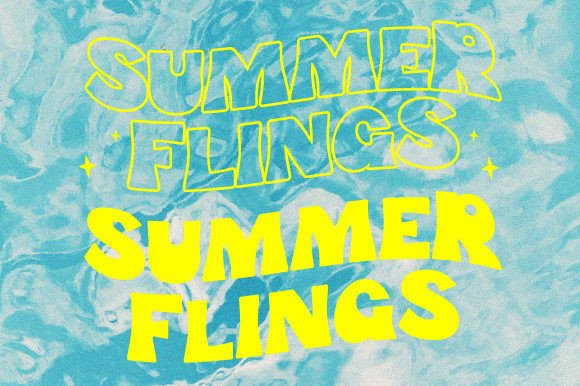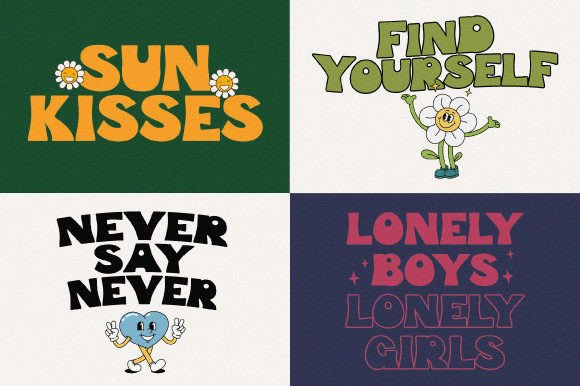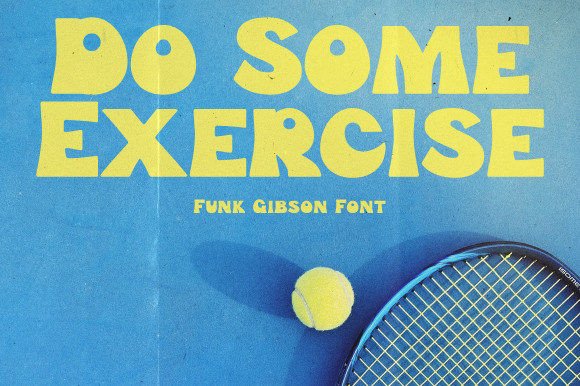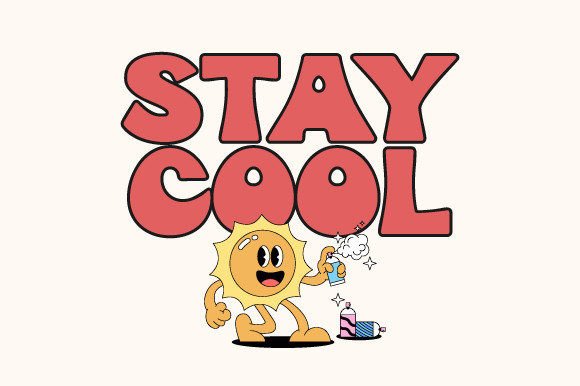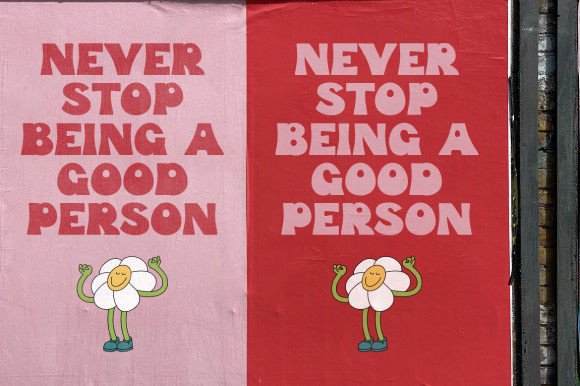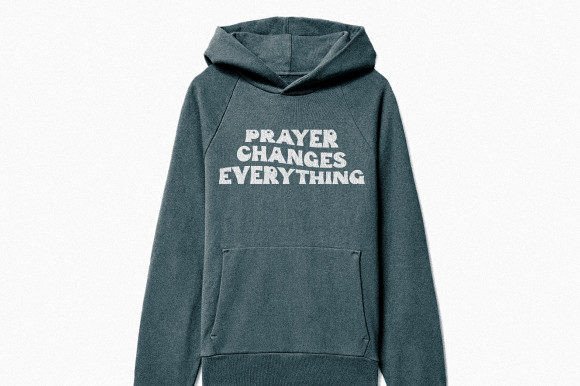
Funk Gibson Font: Add a Retro and Groovy Touch to Your Designs
Funk Gibson Font is a cool, bold display font that has been making waves in the design community. Its funky and fresh vibe makes it suitable for a wide spectrum of projects that require a retro and groovy touch. Whether you’re a designer, crafter, or DIY enthusiast, this font is sure to add a unique and eye-catching element to your work.
What is Funk Gibson Font?
Funk Gibson Font is a display font that boasts a bold and funky style. Its unique design is inspired by the retro and groovy aesthetics of the 1960s and 1970s. The font features bold lines, curvaceous shapes, and a playful vibe that is sure to grab attention. It’s perfect for designs that require a statement piece, such as posters, flyers, brochures, and social media graphics.
Key Features of Funk Gibson Font
- Bold and Funky Style: Funk Gibson Font features a bold and funky style that is sure to make your designs stand out.
- Retro and Groovy Aesthetic: The font’s design is inspired by the retro and groovy aesthetics of the 1960s and 1970s.
- Playful Vibe: The font’s playful vibe makes it perfect for designs that require a fun and carefree touch.
- Wide Range of Applications: Funk Gibson Font is suitable for a wide range of projects, including posters, flyers, brochures, social media graphics, and more.
Why Use Funk Gibson Font?
There are many reasons why Funk Gibson Font is a great choice for designers and crafters. Here are a few:
- Adds a Unique Touch: Funk Gibson Font adds a unique and eye-catching element to your designs.
- Perfect for Retro-Inspired Designs: The font’s retro and groovy aesthetic makes it perfect for designs that require a vintage touch.
- Easy to Read: Despite its bold and funky style, Funk Gibson Font is easy to read, even at smaller sizes.
- Versatile: The font is versatile and can be used for a wide range of projects, from posters to social media graphics.
How to Use Funk Gibson Font
Using Funk Gibson Font is easy. Here are a few tips:
- Pair it with Other Fonts: Pair Funk Gibson Font with other fonts to create a unique and interesting contrast.
- Use it for Headlines: Use Funk Gibson Font for headlines and titles to add a bold and eye-catching element to your designs.
- Experiment with Colors: Experiment with different colors to find the perfect combination that complements the font’s retro and groovy aesthetic.
Design Ideas Using Funk Gibson Font
Here are a few design ideas that you can use Funk Gibson Font for:
- Retro-Style Posters: Create retro-style posters for movies, music festivals, or other events.
- Groovy Brochures: Design groovy brochures for businesses or organizations that want to add a fun and playful touch to their marketing materials.
- Social Media Graphics: Create social media graphics that feature Funk Gibson Font and add a bold and eye-catching element to your online presence.
- Crafting Projects: Use Funk Gibson Font for crafting projects, such as making signs, banners, or other DIY projects.
Funk Gibson Font is a cool, bold display font that is perfect for designers and crafters who want to add a retro and groovy touch to their work. Its funky and fresh vibe makes it suitable for a wide range of projects, from posters to social media graphics. With its bold and funky style, retro and groovy aesthetic, and playful vibe, Funk Gibson Font is sure to make your designs stand out.